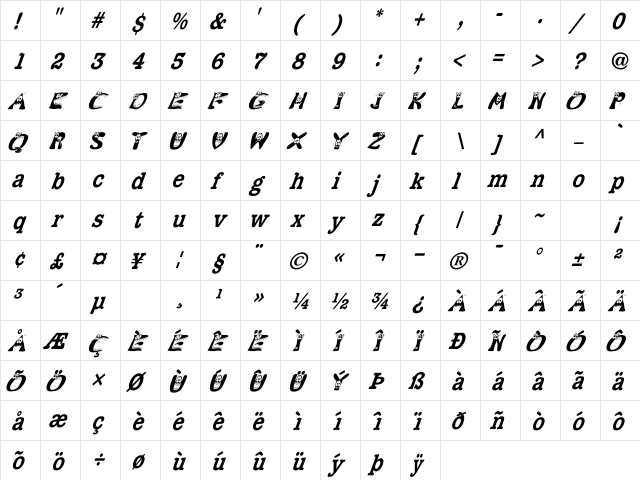
KAMonsterSmirk Regular
Design Context for KAMonsterSmirk Typeface
KAMonsterSmirk is a composed and adaptable typeface that performs quietly and consistently across a wide range of design contexts.